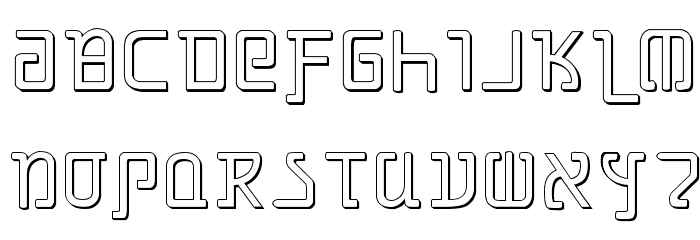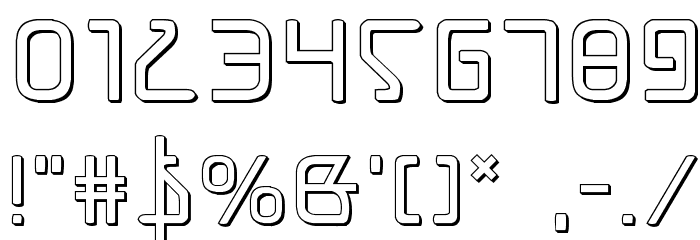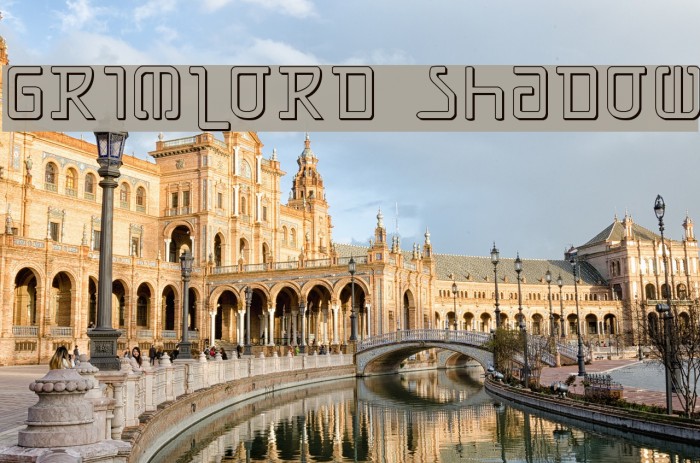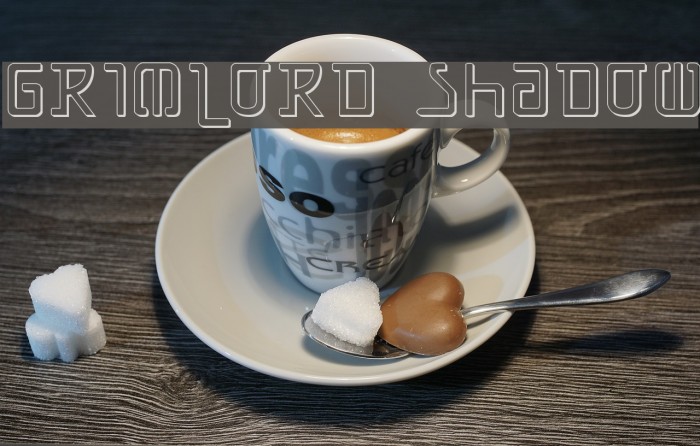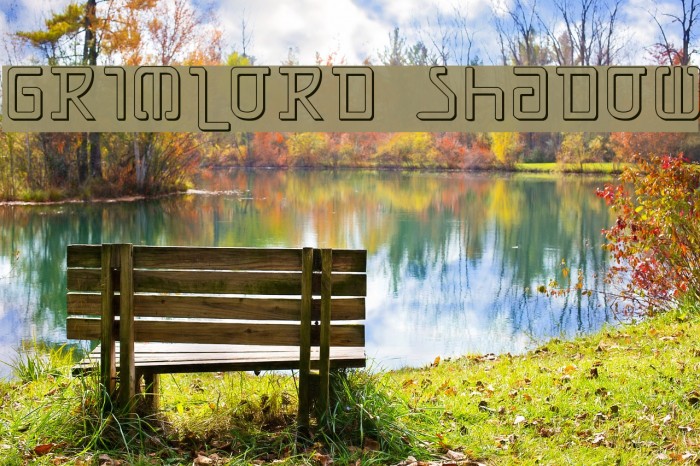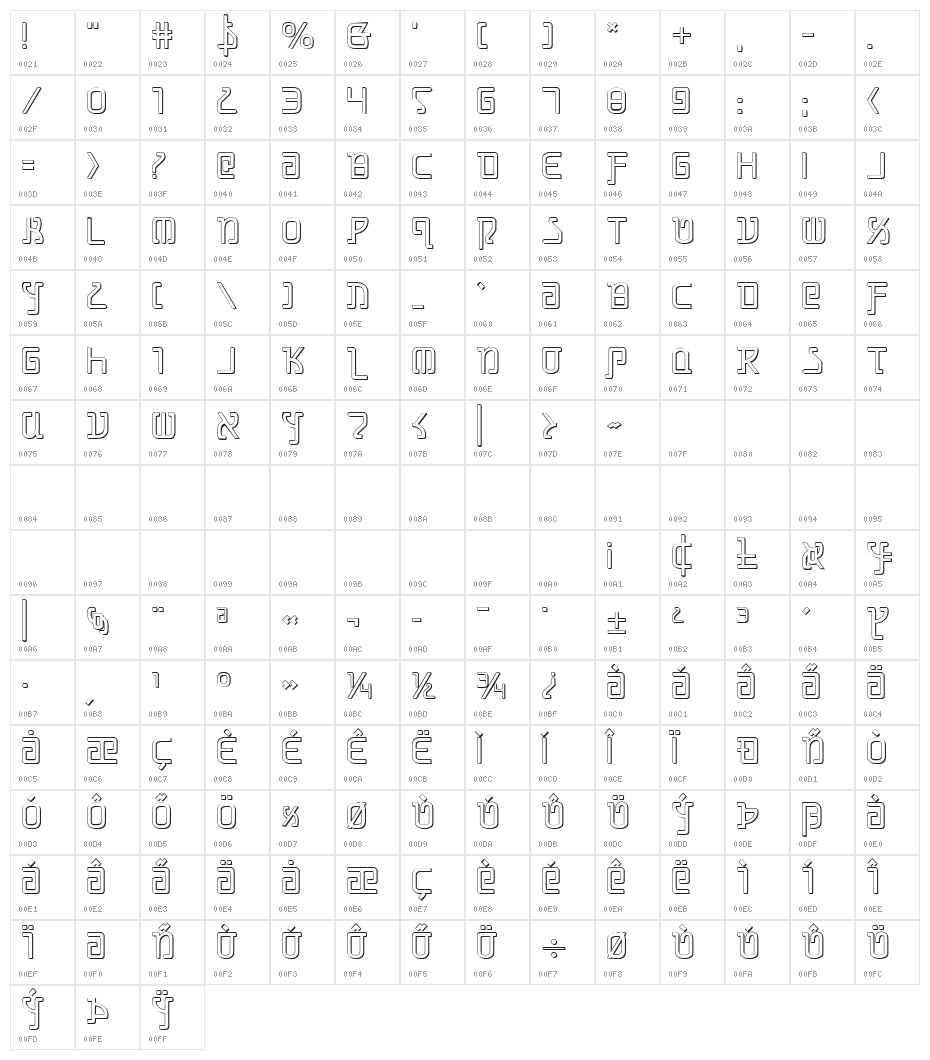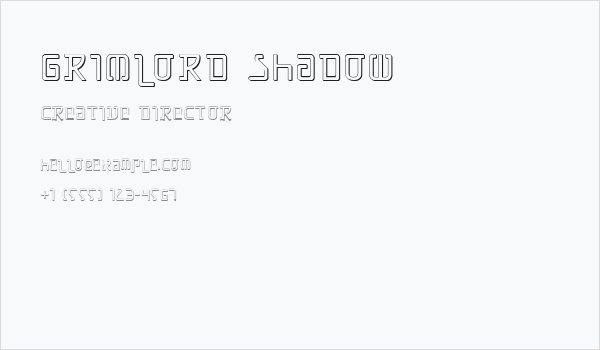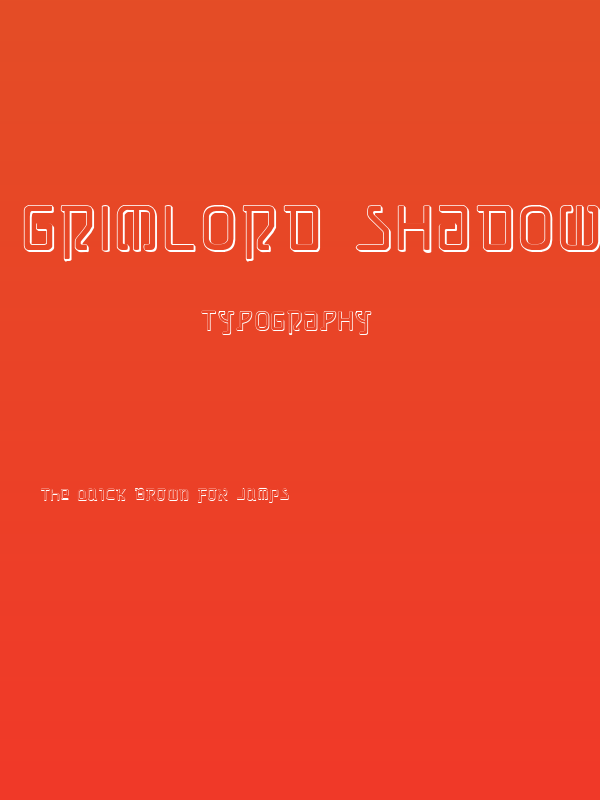
Grimlord Shadow Font
This font features a futuristic and geometric design, characterized by its hollow, outlined letterforms. Each character is constructed with clean, sharp lines and a consistent stroke width, giving it a modern and digital appearance. The uppercase and lowercase letters maintain a uniform height, enhancing the font's structured and cohesive look. The numerals and special characters are designed to match the overall aesthetic, ensuring a seamless integration across all glyphs. This font's unique style makes it stand out, offering a distinct visual appeal that is both contemporary and versatile.
A futuristic, geometric font with hollow, outlined characters and a modern aesthetic.
- Proposed Projects: Ideal for technology branding, sci-fi themed projects, video game interfaces, and modern poster designs.